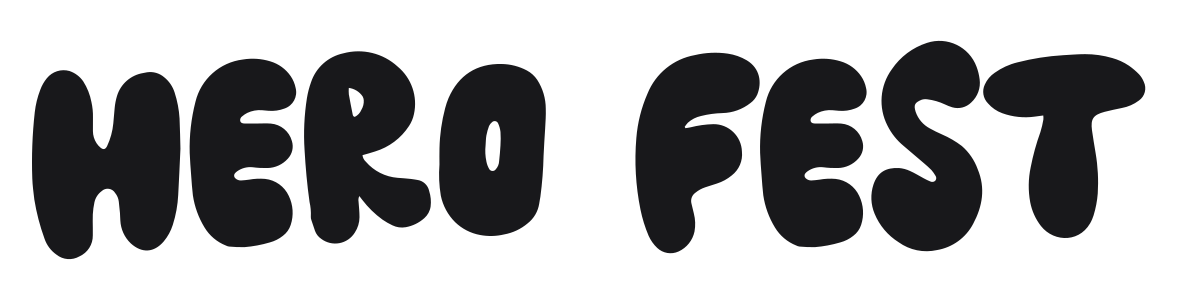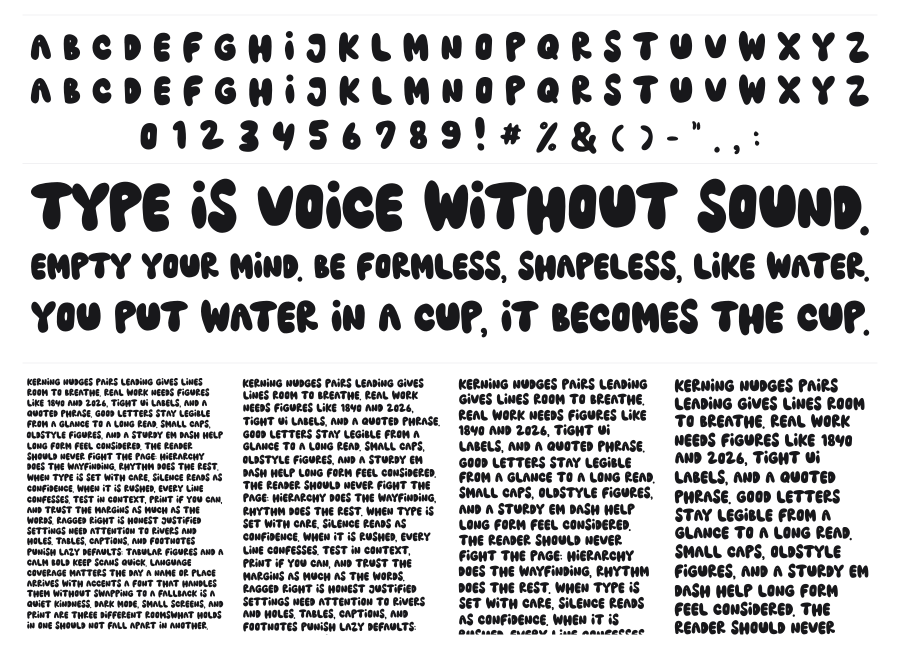
Hero Fest
Hero Fest is a heavy, bubbly rounded display font with thick uniform strokes and inflated, balloon-like forms. Every character feels like it's been pumped full of air, with rounded terminals and tight counters that push the design firmly into comic and festival territory. Great for anything that needs energy and a lighthearted punch.